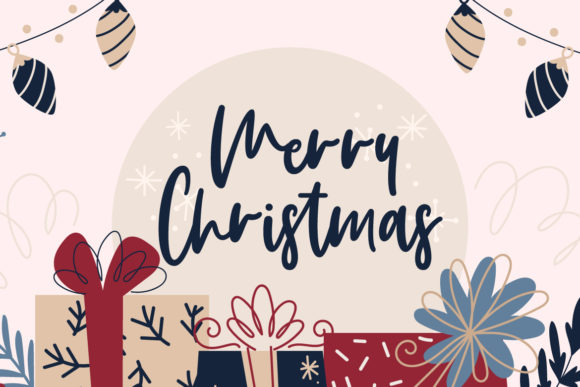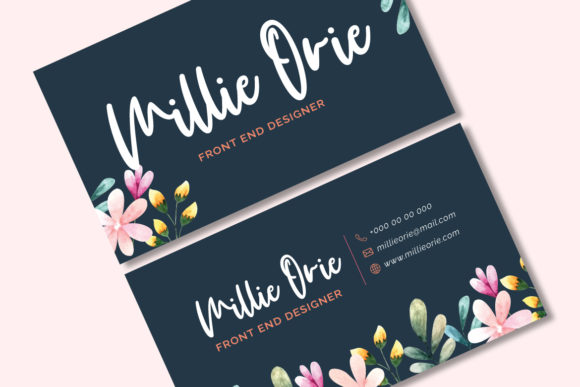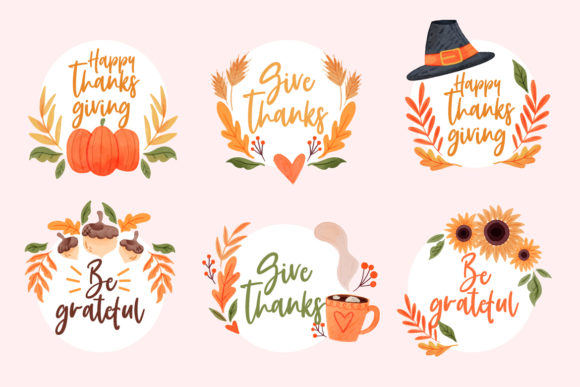
Introduction to Innocent Girl Font
Innocent Girl is a beautiful and elegant script font.
Fall in love with its authentic feel and use it to create gorgeous wedding invitations, beautiful stationary art, eye-catching social media posts, and cute greeting cards .
Why Choose Innocent Girl Font?
Innocent Girl Font offers exceptional quality and versatility, making it a valuable addition to your design toolkit. Whether you’re creating for personal projects or commercial use, Innocent Girl Font delivers professional results.